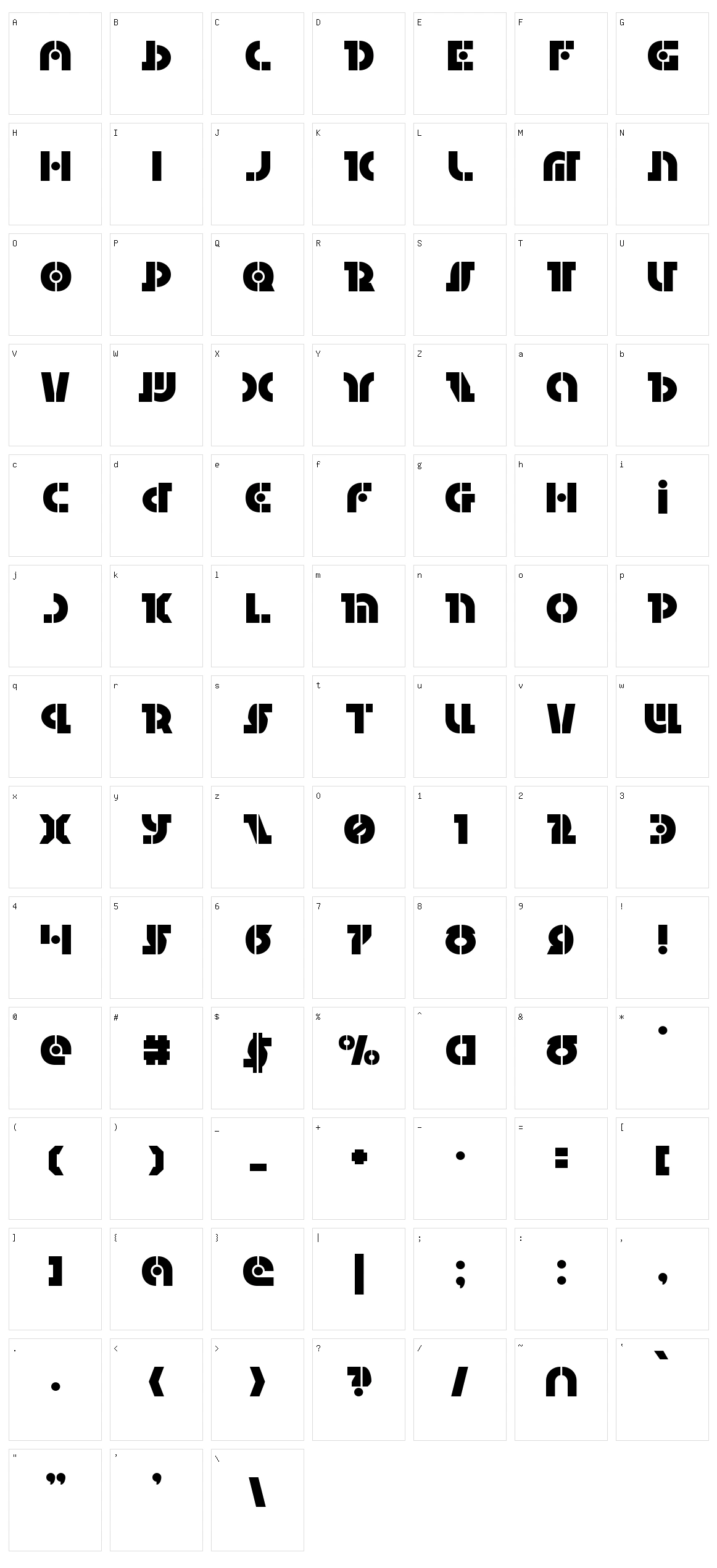
Questlok
This font comes with the following 21 versions: Regular, Italic, Semi-Italic, Super-Italic, Leftalic, Condensed, Condensed Italic, Expanded, Expanded Italic, 3D, 3D Italic, Gradient, Gradient Italic, Halftone, Halftone Italic, Laser, Laser Italic, Chrome, Chrome Italic, Title and Title Italic.